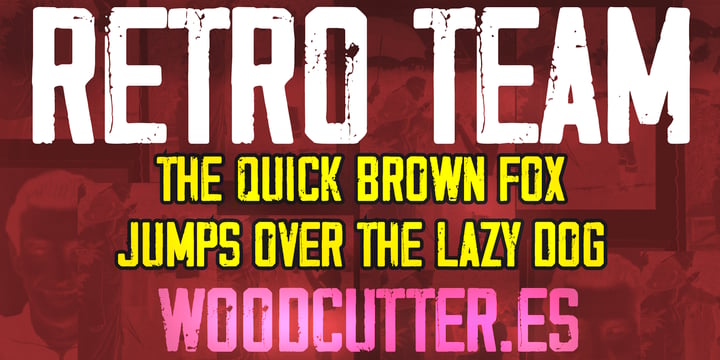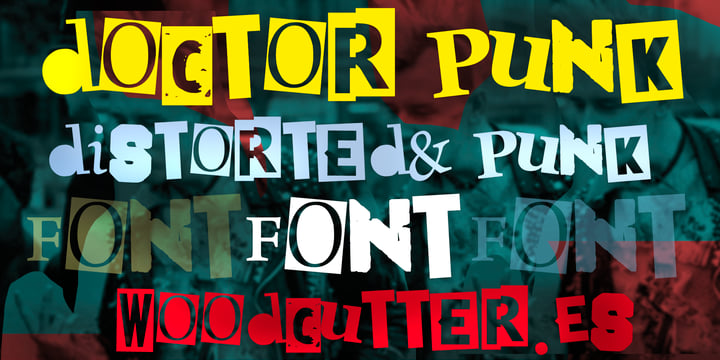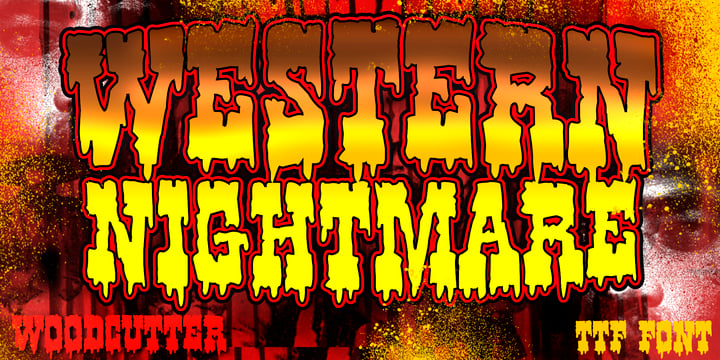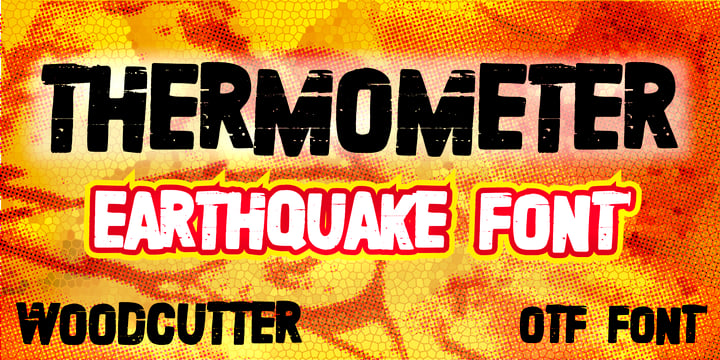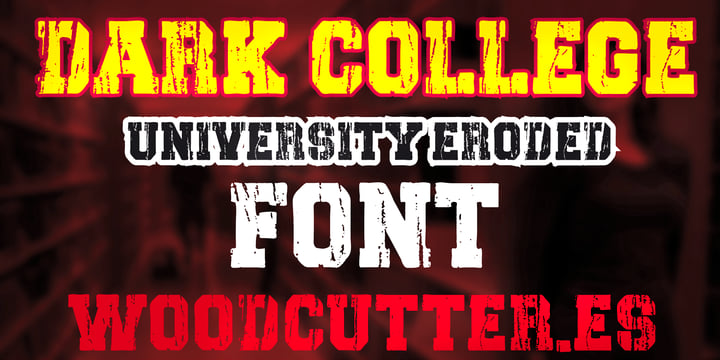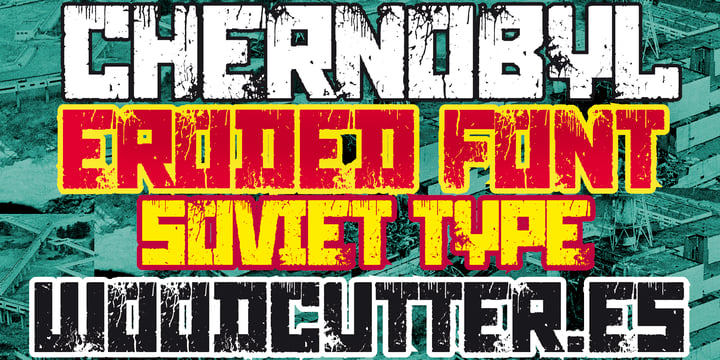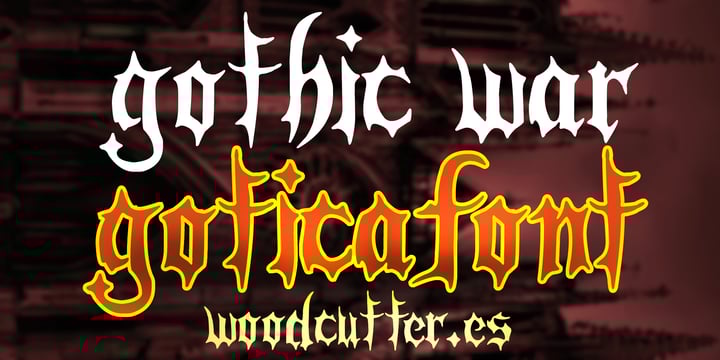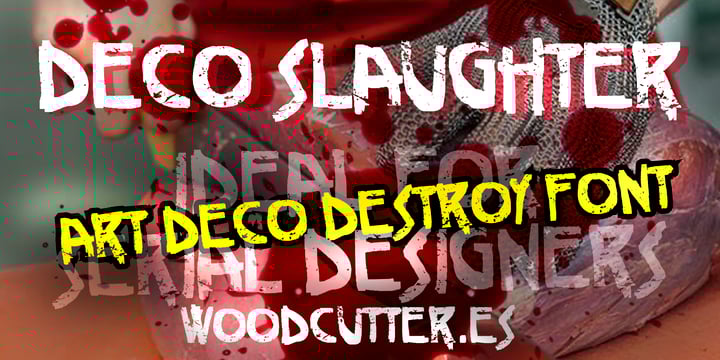
Woodcutter Crazy Bundle
Discover the ultimate font package for your boldest designs with our exclusive bundle of 9 unique fonts.
Thermometer: A dynamic and versatile font that suits a variety of styles.
Western Nightmare: Evokes the wild west with a dark and terrifying twist.
Basurero Humano: Perfect for grunge and urban designs, with a messy and raw style.
Deco Slaughter: Merges art deco with a macabre touch, ideal for retro and gothic themes.
Doctor Punk: A rebellious and energetic typeface, perfect for punk attitude projects.
Chernobyl: Inspired by the nuclear catastrophe, this font is perfect for post-apocalyptic themes.
Dark College: A collegiate style with a dark and sinister twist.
Retro Team: Brings back nostalgia with this vintage sports team typeface.
Gothic War: A robust and dramatic font, perfect for epic and medieval themes.